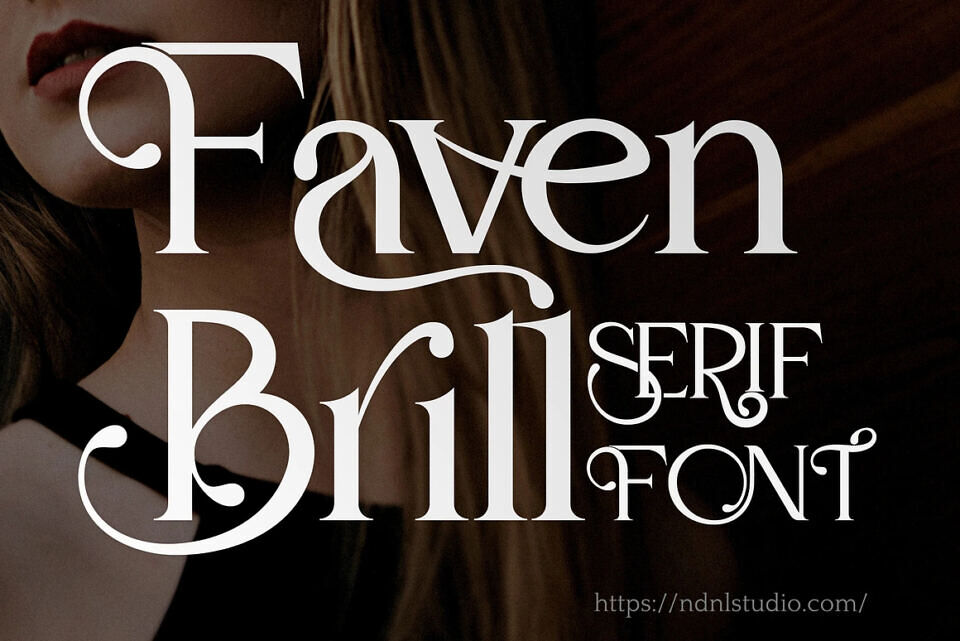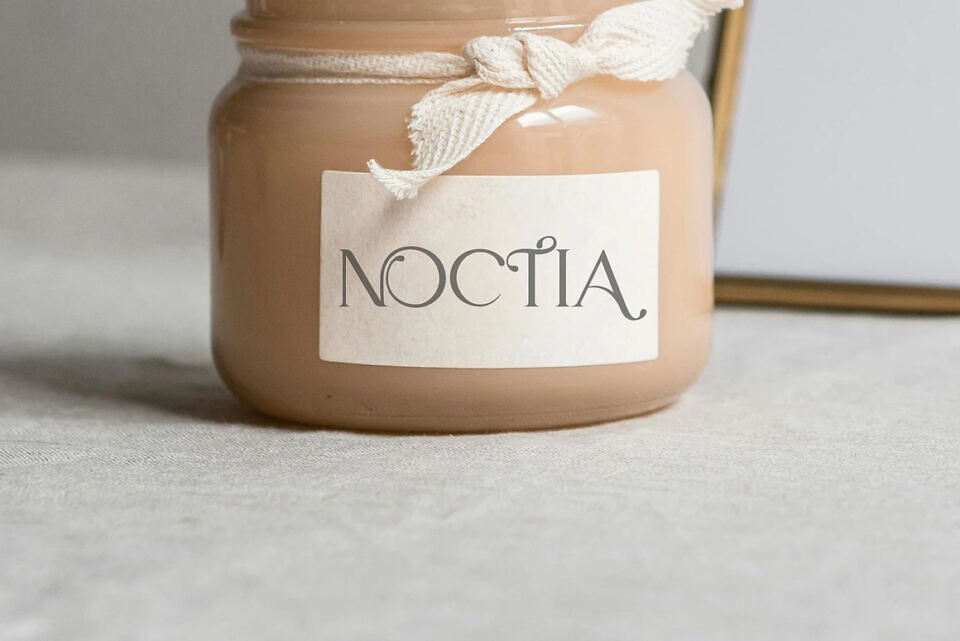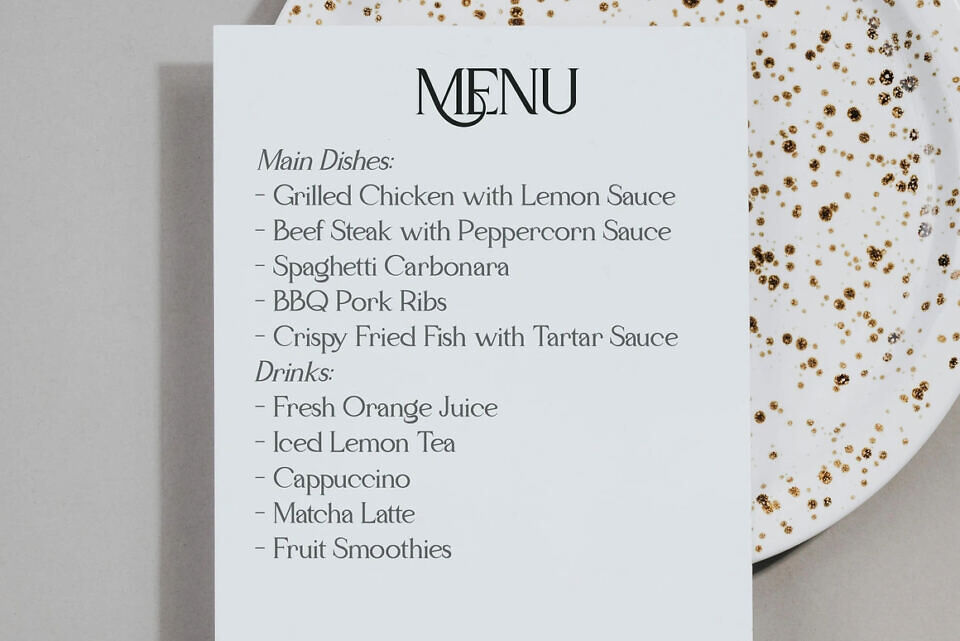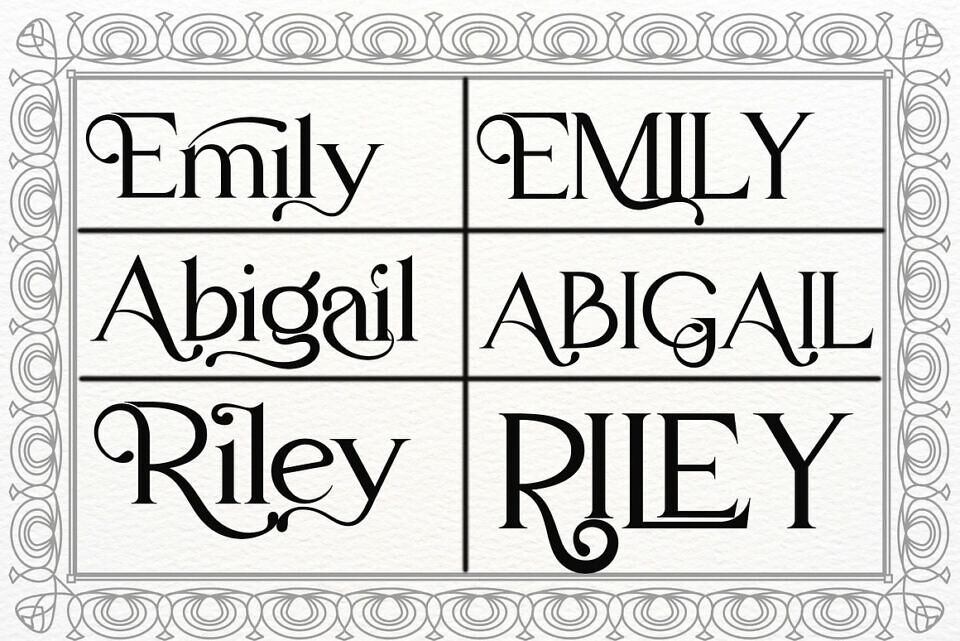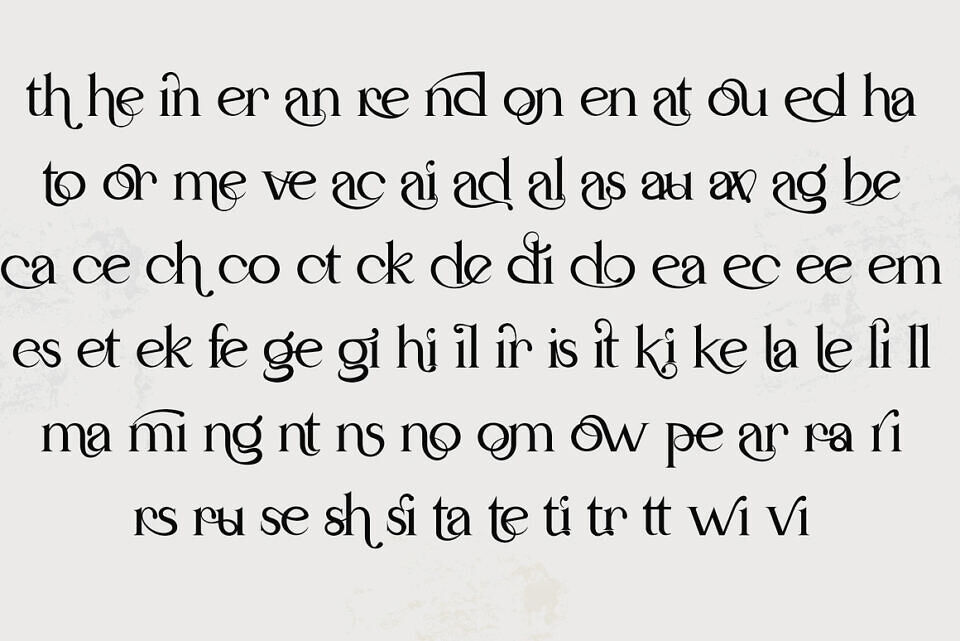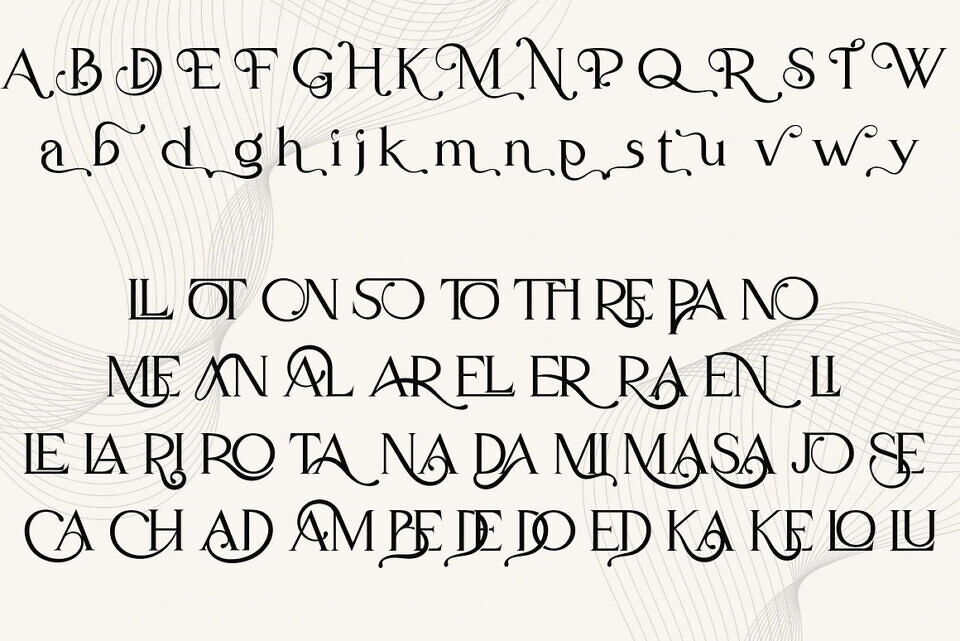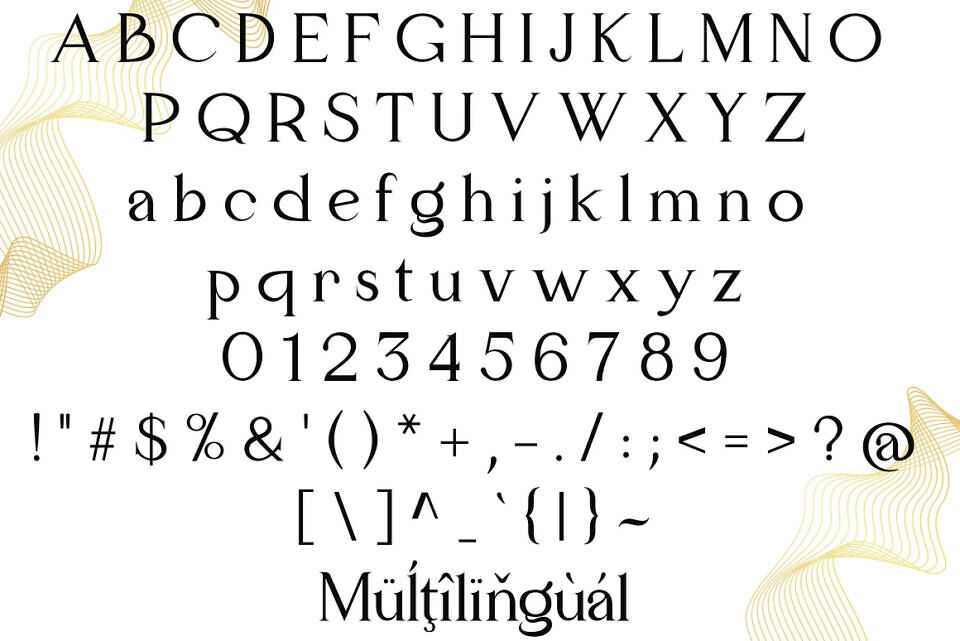
Faven Brill Font
Faven Brill is a refined serif font that captures both grace and confidence. With its elegant letterforms and subtle artistic touches, it delivers a sense of luxury and sophistication. Perfect for fashion projects, beauty branding, editorial layouts, or wedding designs — Faven Brill adds a distinctive charm that elevates every word into a visual statement.